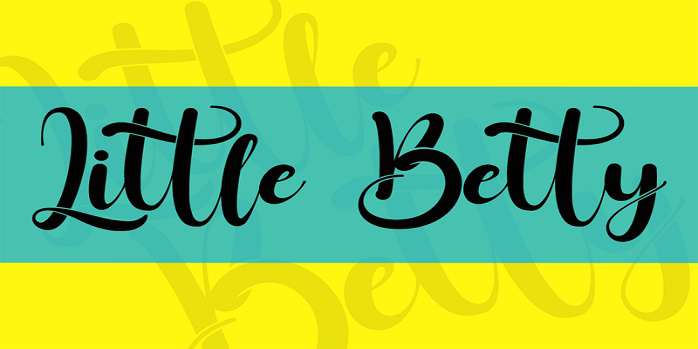
Little Betty Font
Little Betty is a high quality Calligraphy font that is designed by Rochart Studio and is available for free download and personal use. The free version provides all uppercase and lowercase letters and a few special characters too.